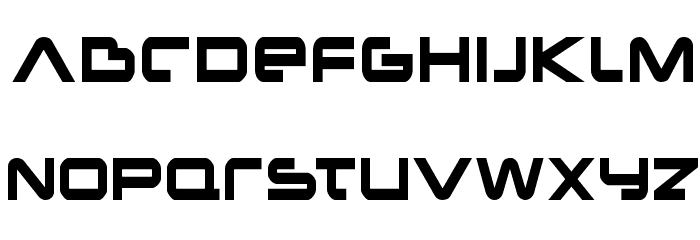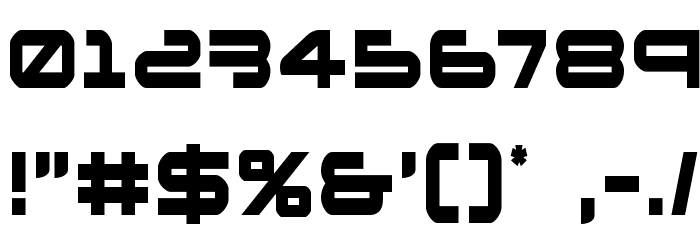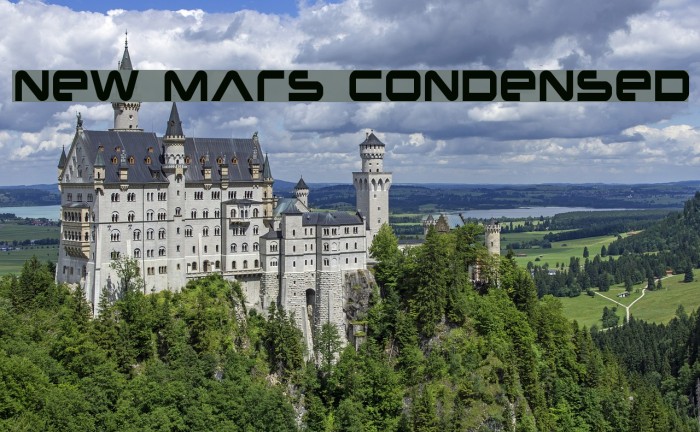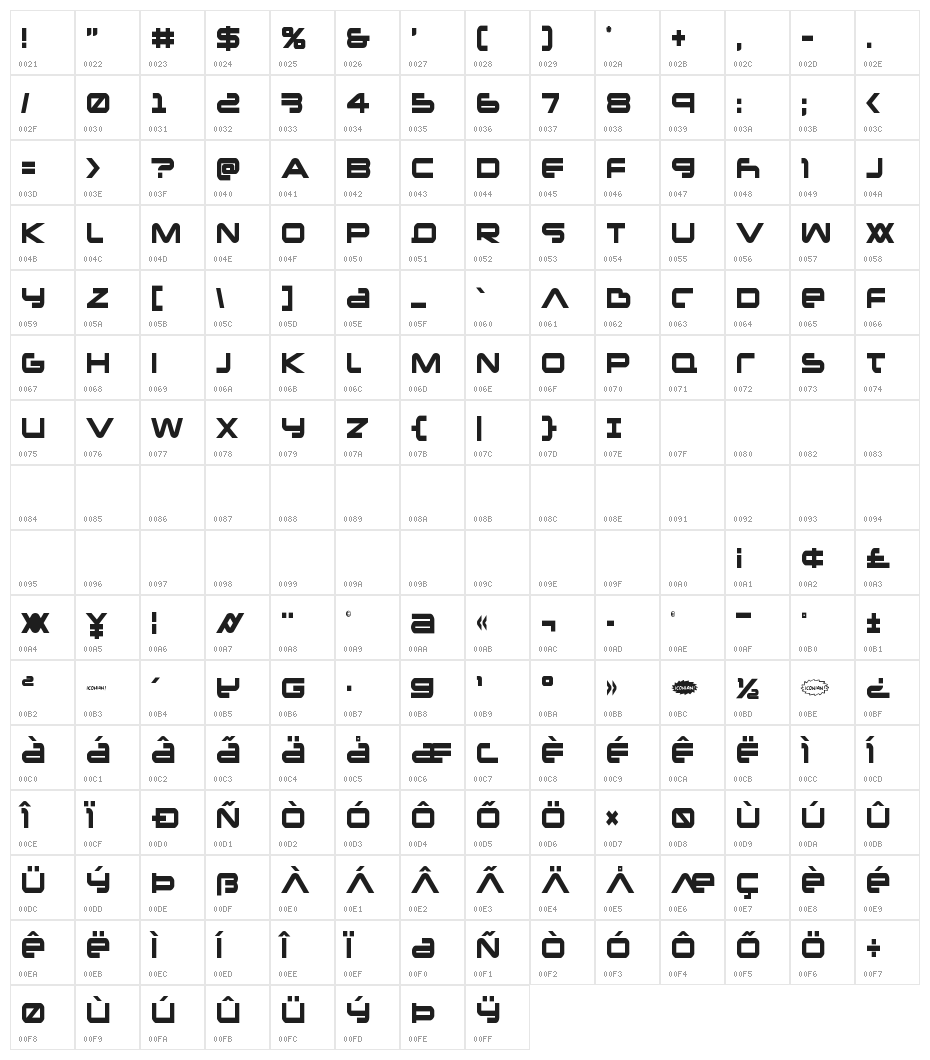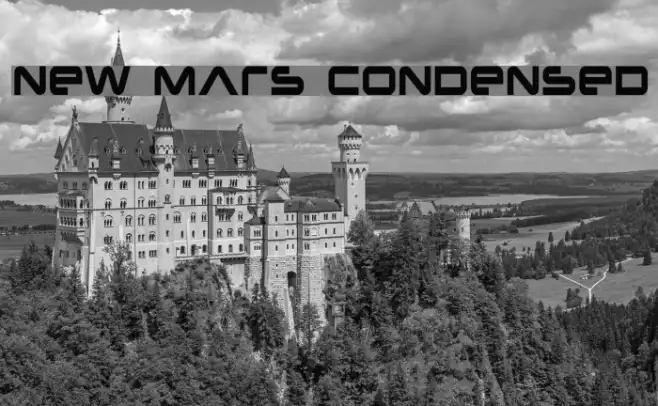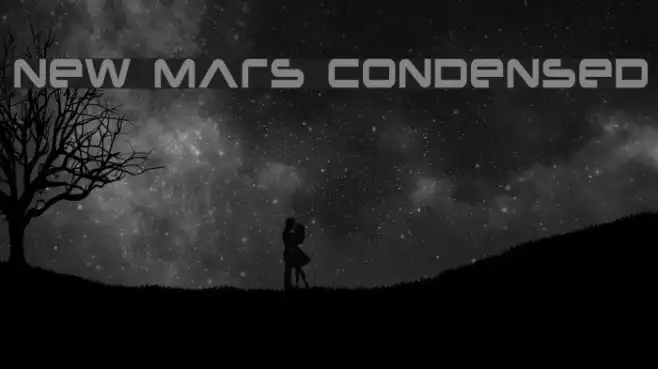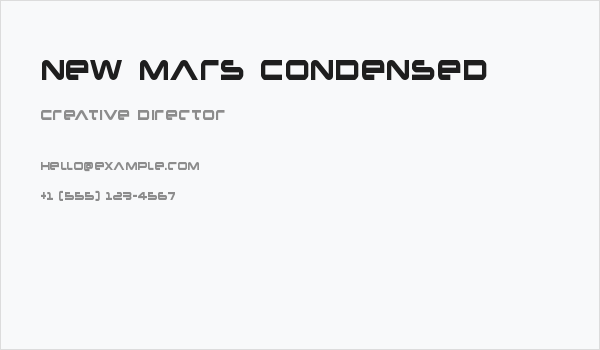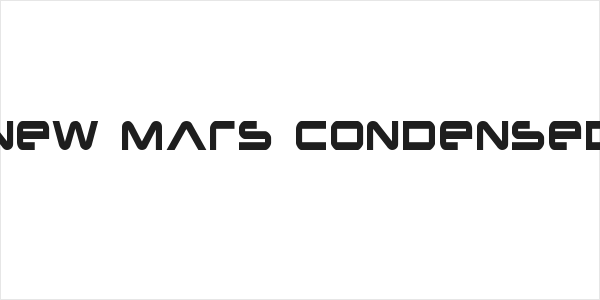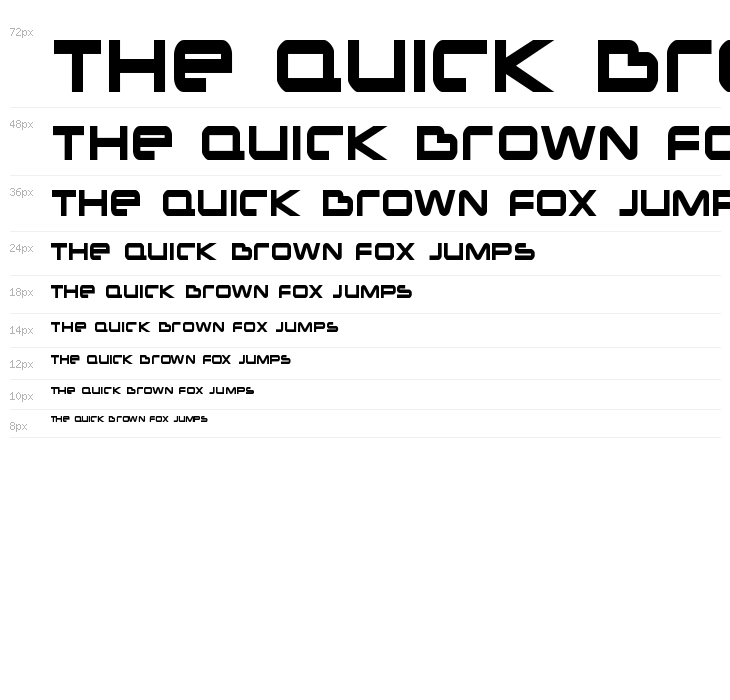
New Mars Condensed Font
This font features a futuristic and geometric design, characterized by its bold and condensed letterforms. The angular shapes and sharp edges give it a modern and tech-inspired appearance. The uppercase and lowercase letters maintain a consistent style, with a uniform stroke width that enhances readability. The numerals and special characters are designed to match the overall aesthetic, making it suitable for digital and print media. Its distinct style makes it ideal for projects that require a contemporary and innovative look.
A bold, futuristic font with geometric and condensed letterforms.
- Font: New Mars Condensed
- Proposed Projects: Ideal for technology branding, sci-fi posters, video game titles, and modern advertising.